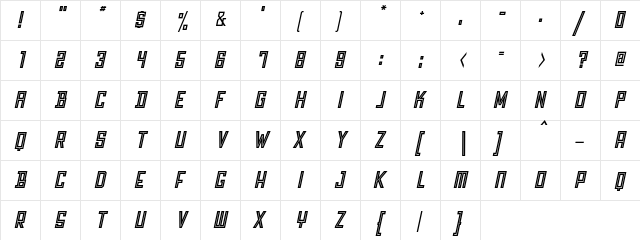
Grizzly Bear 10 Shadow Inline I Regular
| Foundry | Alex Sheldon for Match and Kerosene |
| Designer | Alex Sheldon for Match and Kerosene |
Design Context for Grizzly Bear 10 Shadow Inline I Typeface
Grizzly Bear 10 Shadow Inline I is built around its visual character rather than neutral utility — its distinctive forms are designed to make an impression at display sizes.
Font Pairing: Pair with a clean neutral sans-serif for body copy to let Grizzly Bear 10 Shadow Inline I's character lead without overwhelming the composition.
Pro Tip: Use Grizzly Bear 10 Shadow Inline I exclusively at display sizes — it was designed to be seen, not read at length. Let a neutral companion handle body copy.